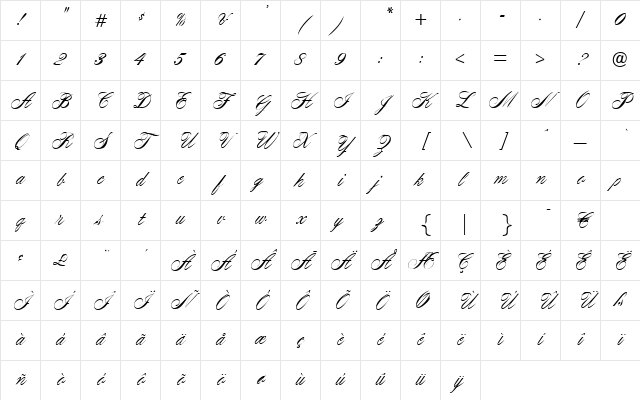
SurreyScript Regular
Design Context for SurreyScript
SurreyScript flows with the natural rhythm of handwritten lettering, making it ideal for designs that call for warmth and personal expression.
Font Pairing: Combine SurreyScript with a simple geometric sans for maximum contrast - the tension between flowing curves and clean structure is a classic typographic pairing.
Pro Tip: Use SurreyScript for short runs of text - names, titles, or taglines. Extended body copy in script faces tires the eye quickly.